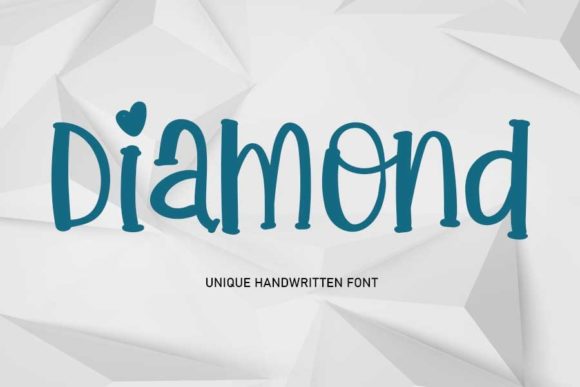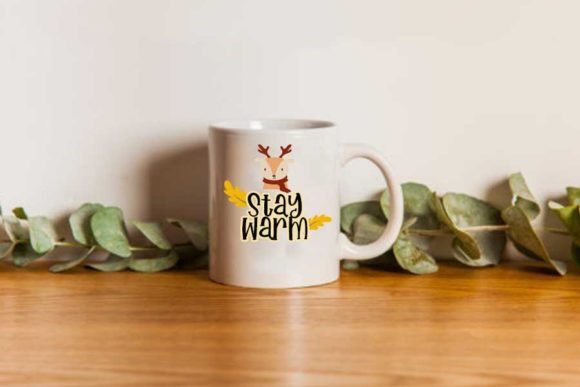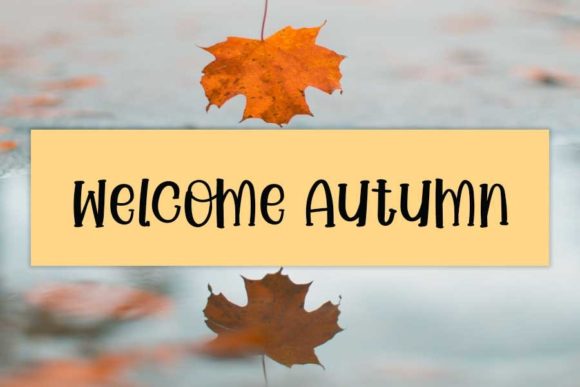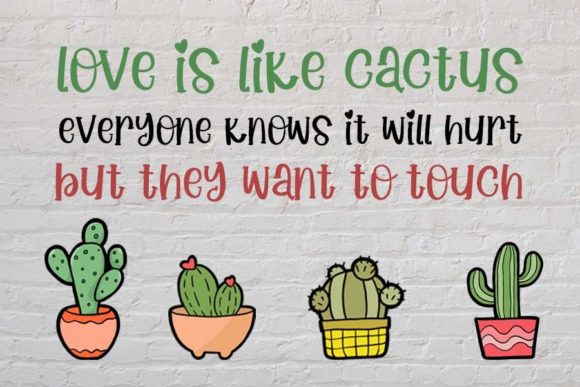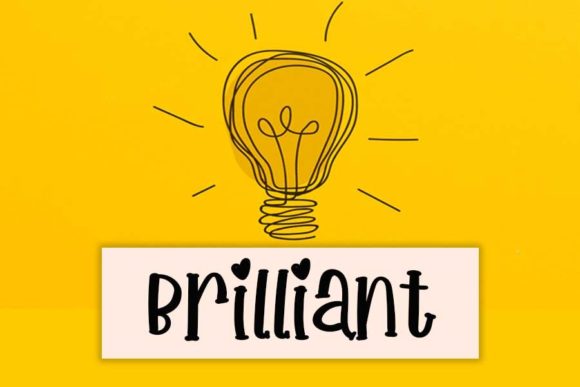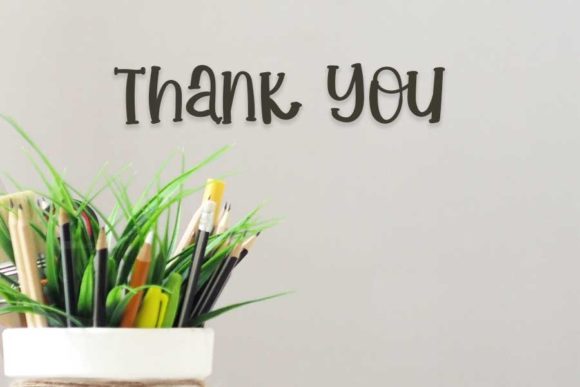
Diamond Font
About Diamond Font
Diamond is a chic and playful handwritten font. Its natural and unique style makes it incredibly fitting to a large pool of designs. The only limit is your imagination!